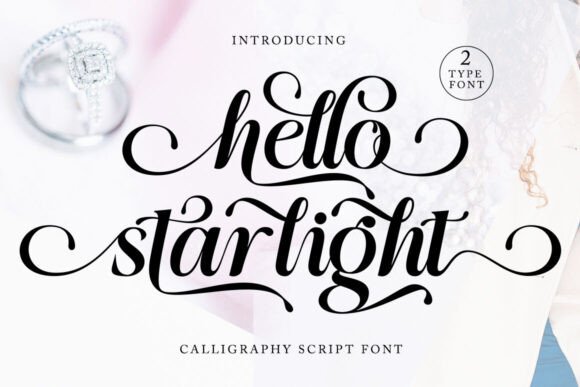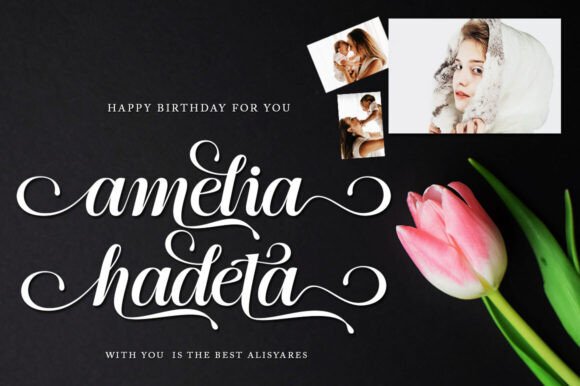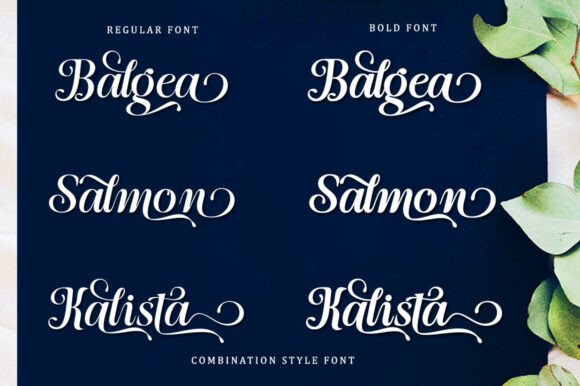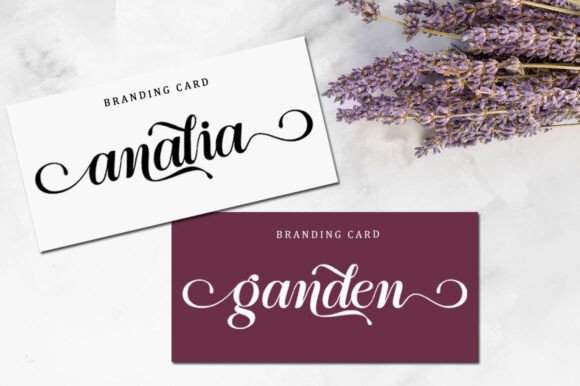
Hello Starlight Font: Elegant Script for Wedding Invitations & Branding
About the Hello Starlight Font
Introducing the Hello Starlight Font, a beautifully crafted typeface designed to elevate your creative projects. Hello Starlight is a very beautiful, elegant and unique script font with 2 styles. It is expertly designed to be a true favorite and has the potential to take your creative ideas to the highest level!
Hello Starlight’s elegant, flowing forms are ideal for projects requiring a touch of refined sophistication. It excels in headlines, logos, short quotes, and invitations, adding a touch of class to branding materials, wedding stationery, and packaging design. However, its intricate details make it unsuitable for body text or UI elements where legibility at smaller sizes is crucial.
Consider pairing Hello Starlight with a clean sans-serif like Montserrat for a contemporary contrast, or a classic serif such as Garamond for a more traditional feel. A geometric sans-serif like Futura would add a modern edge, while a playful script like Pacifico could create a more whimsical pairing, depending on the desired mood.
The font’s overall personality is sophisticated yet approachable; elegant but not overly fussy. Its refined charm makes it a strong choice for brands emphasizing quality, craftsmanship, or a timeless aesthetic.
Hello Starlight Font Usage Examples
Hello Starlight Font Example